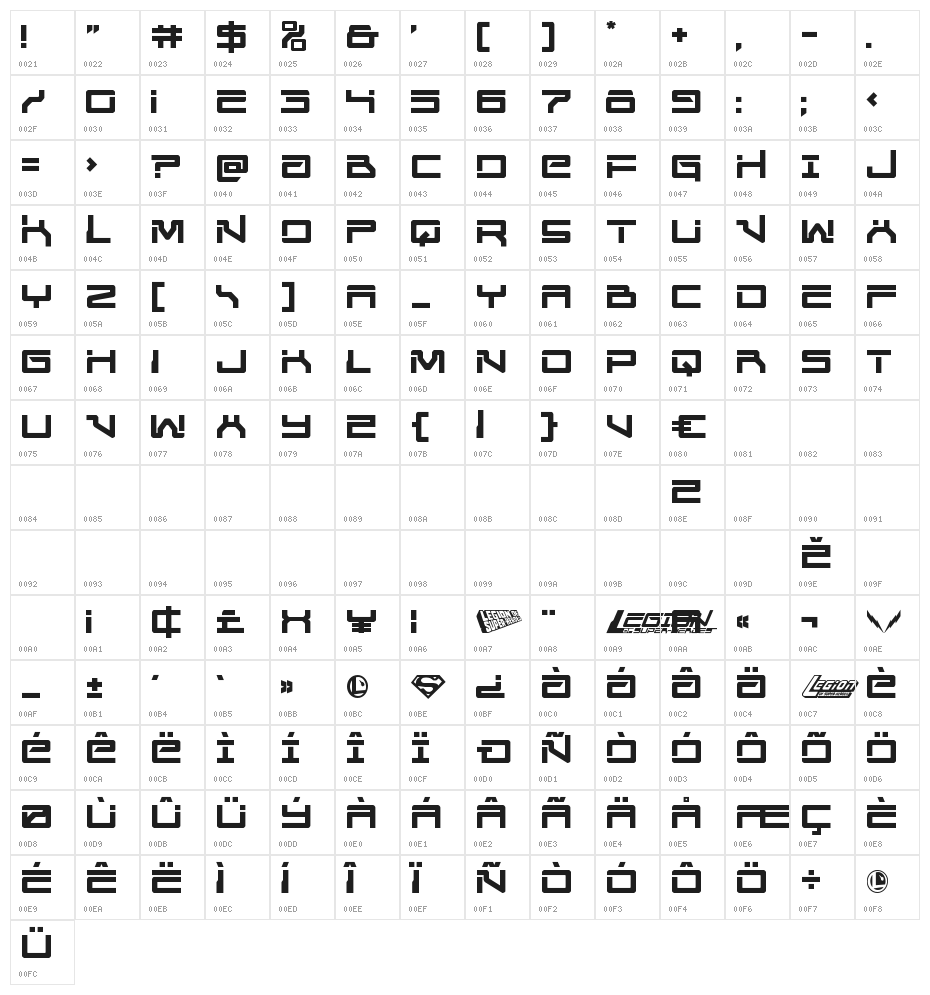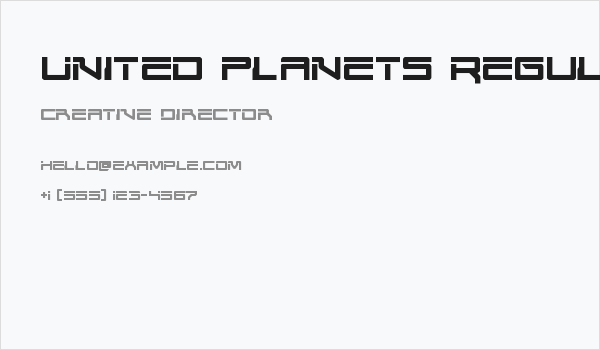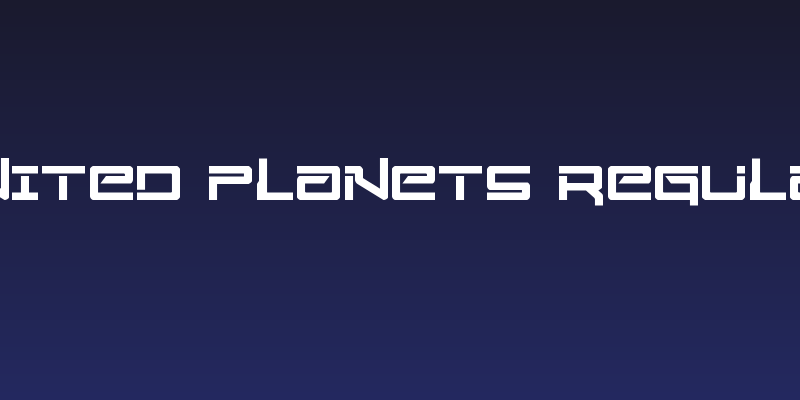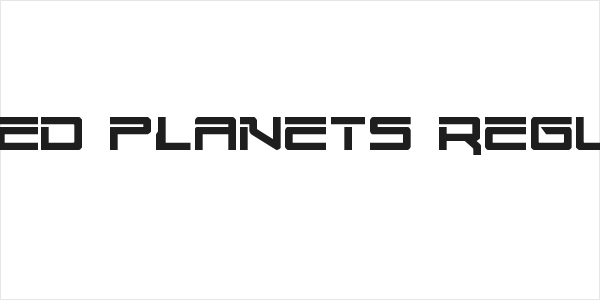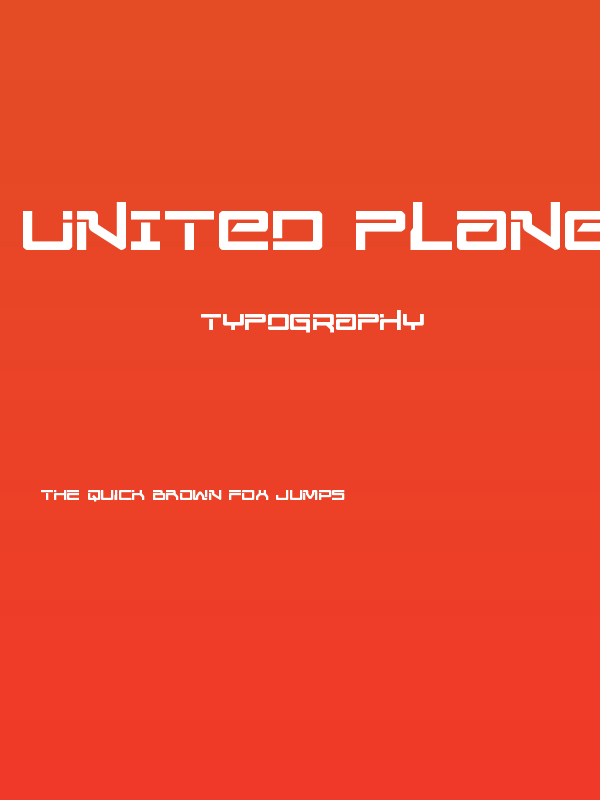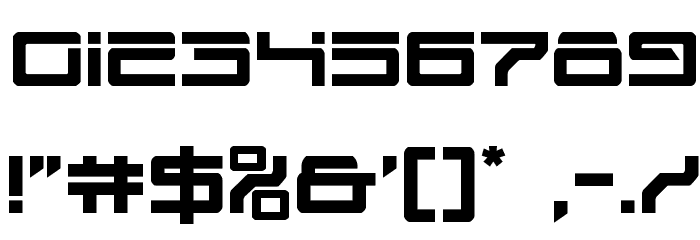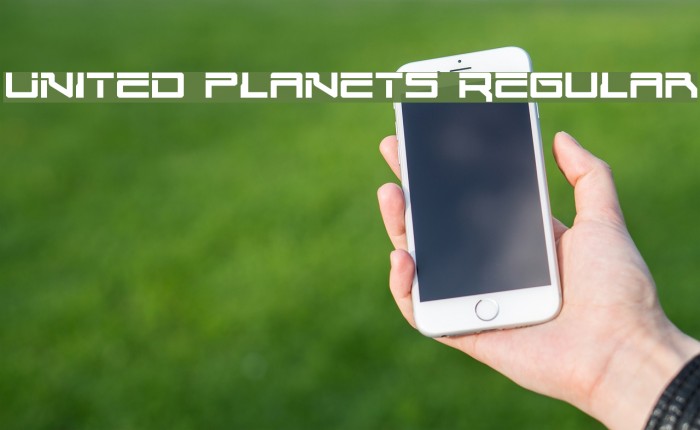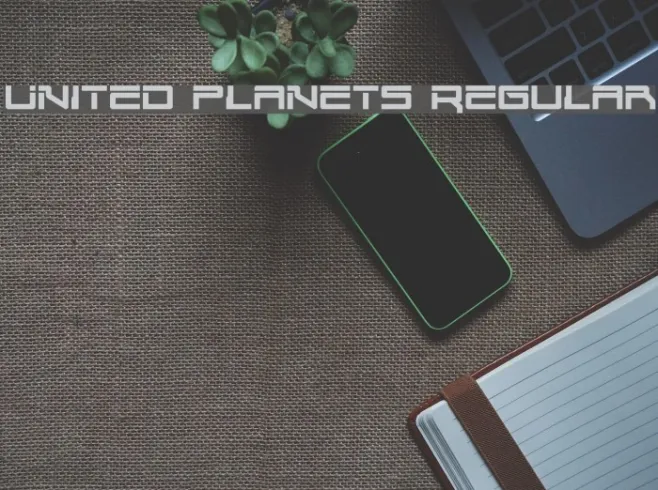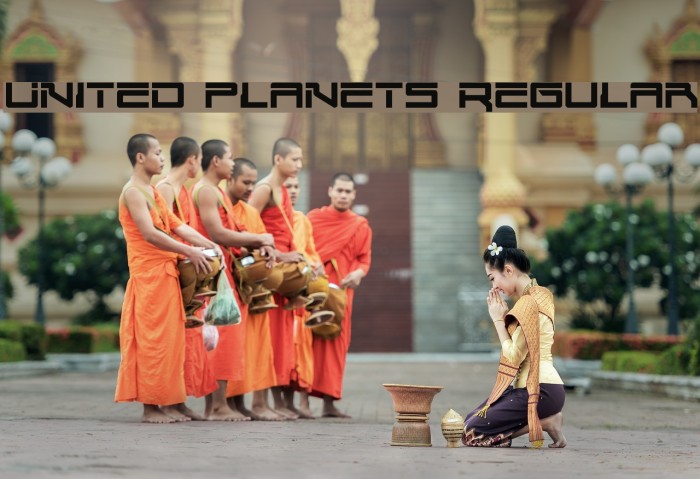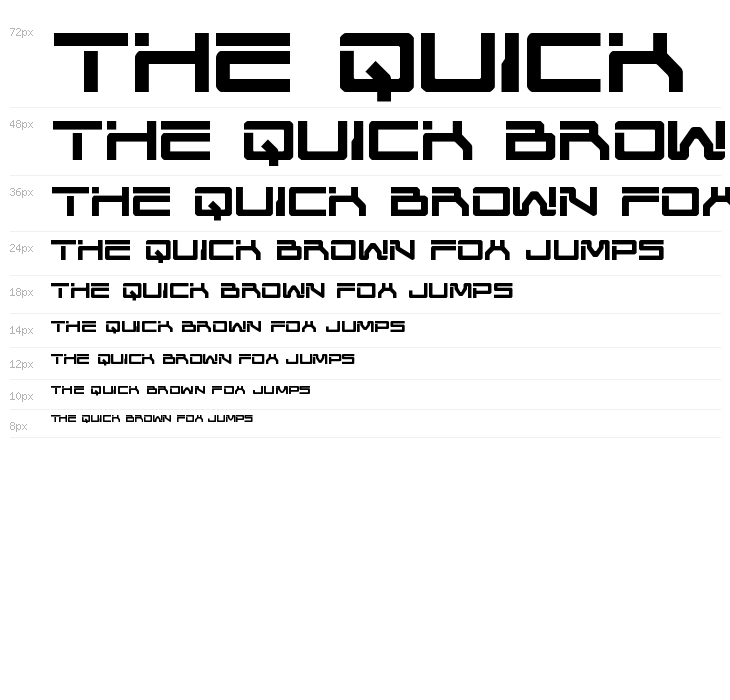
United Planets Regular Font
United Planets Regular Description
This font features a futuristic and geometric design, characterized by its bold and angular letterforms. The characters are constructed with a consistent stroke width, giving it a uniform appearance. The design incorporates sharp angles and straight lines, creating a modern and tech-inspired aesthetic. The uppercase and lowercase letters maintain a similar structure, enhancing the cohesive look of the typeface. The numerals and special characters follow the same design principles, ensuring a seamless integration across different text elements. This font is ideal for projects that require a contemporary and edgy feel.